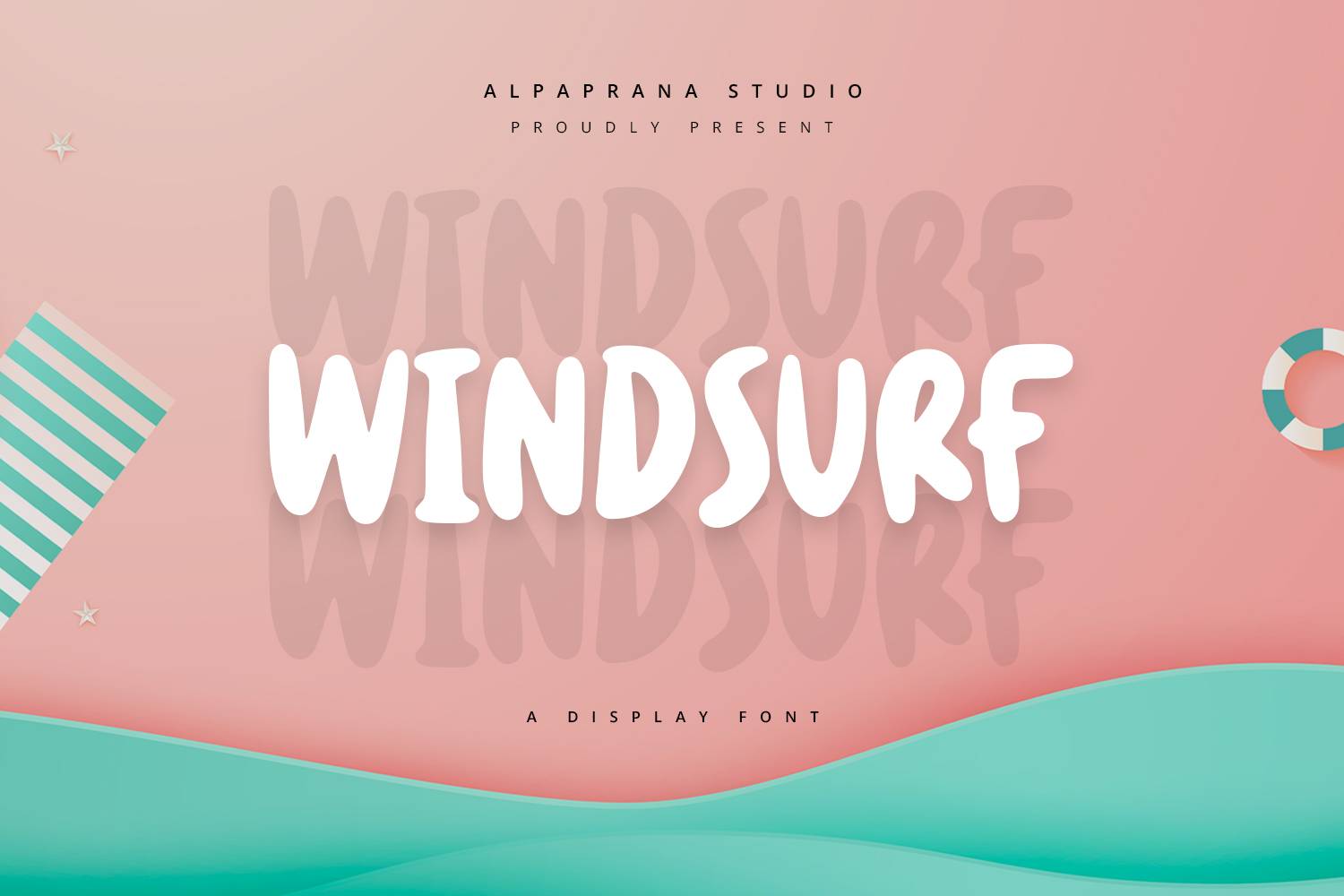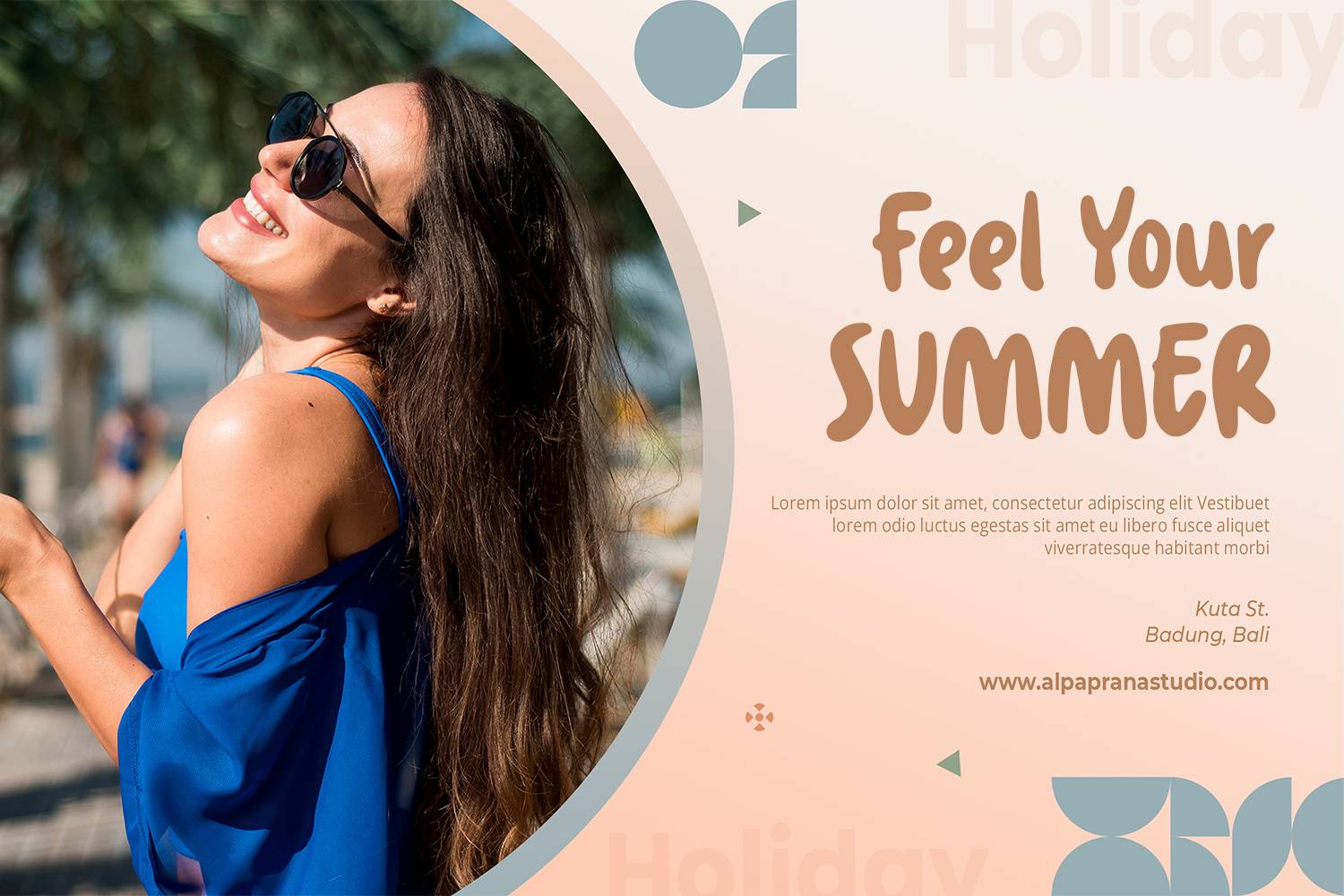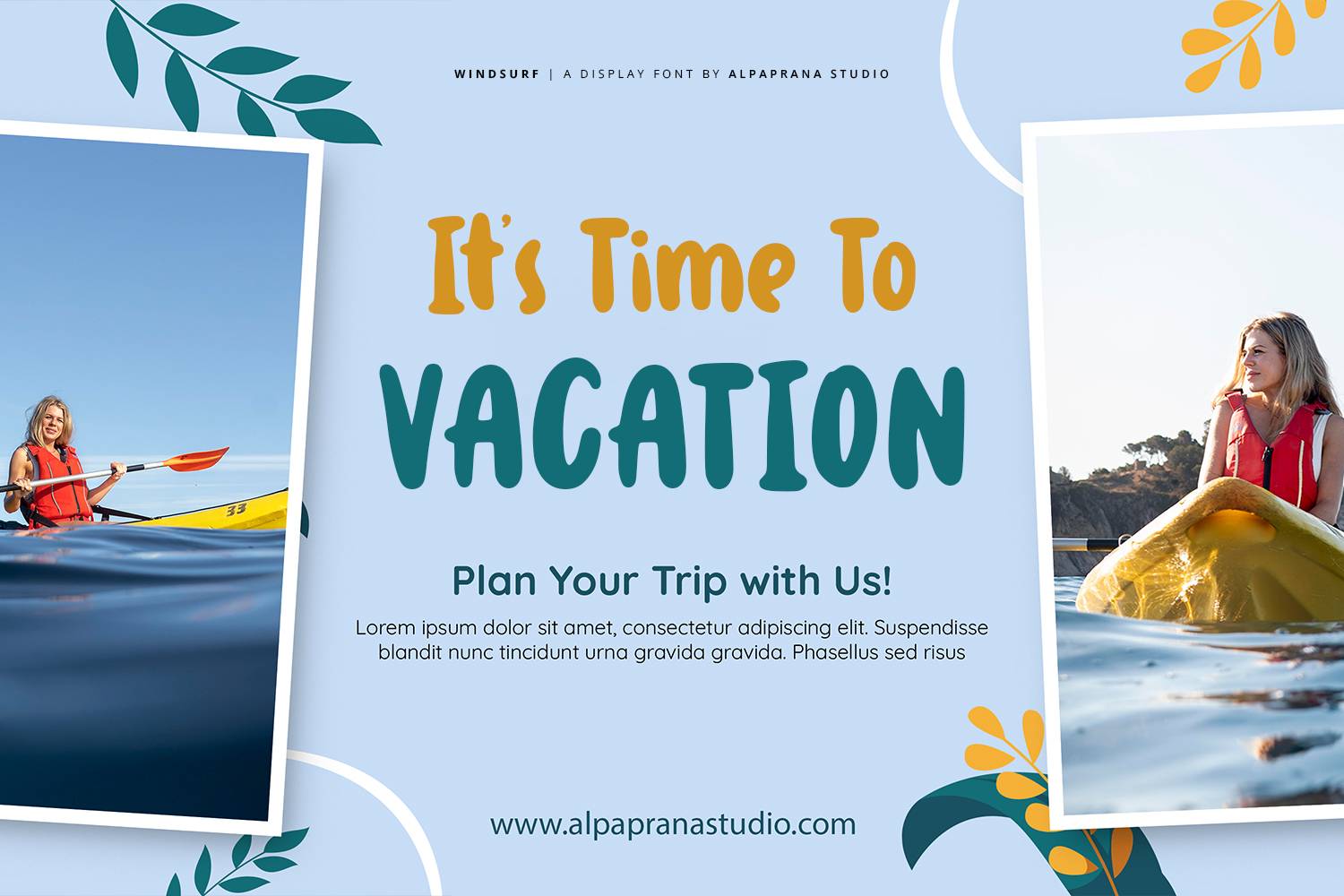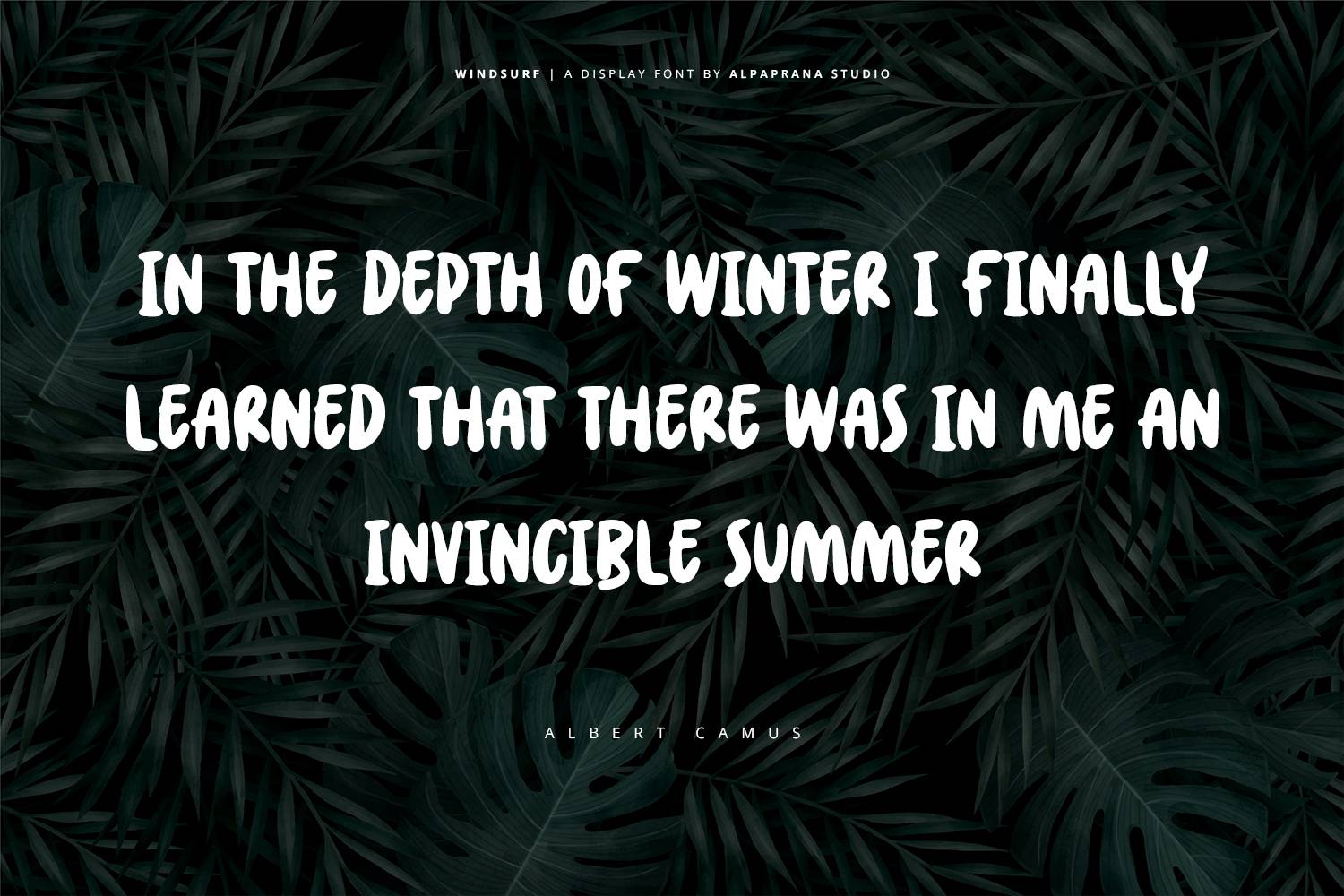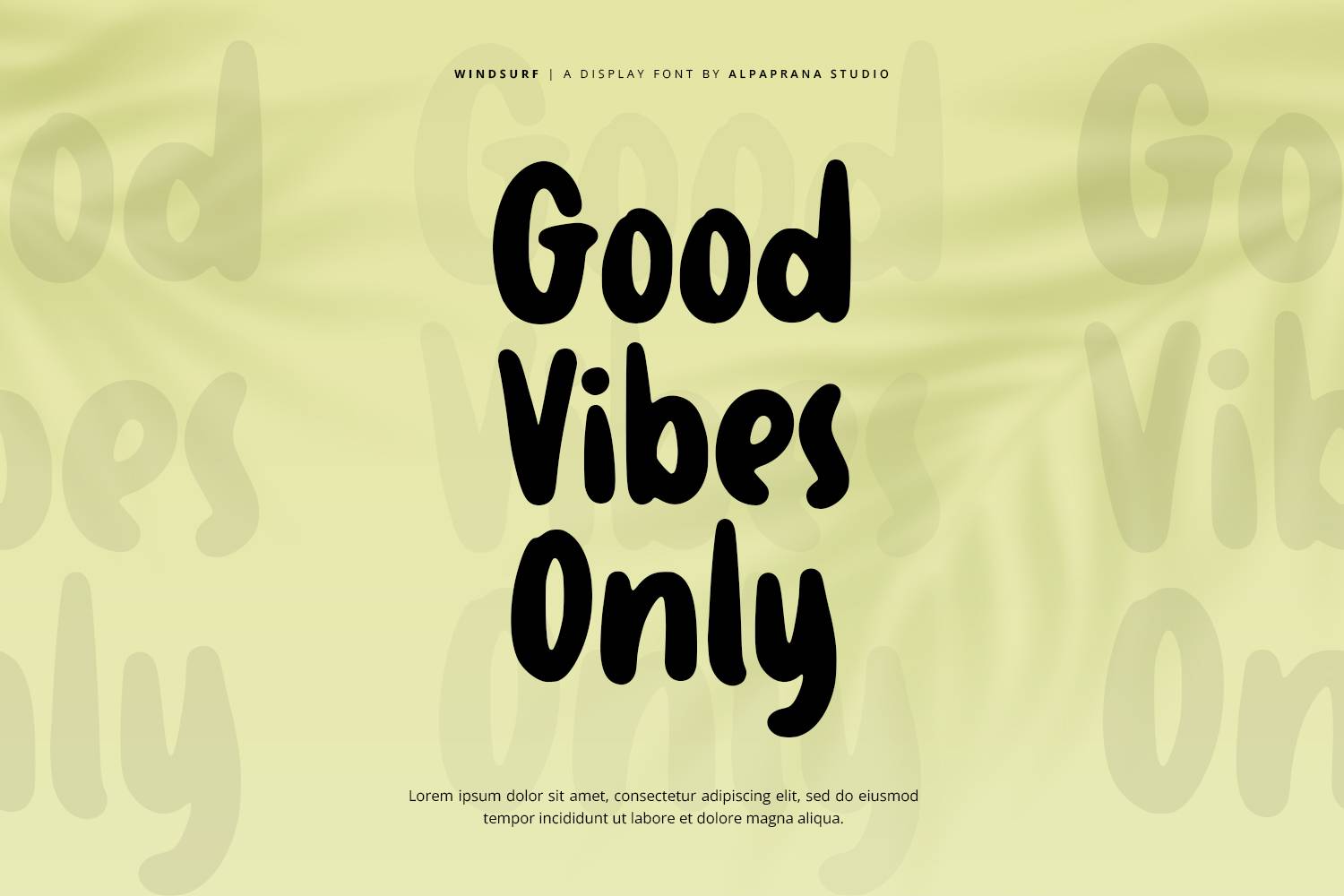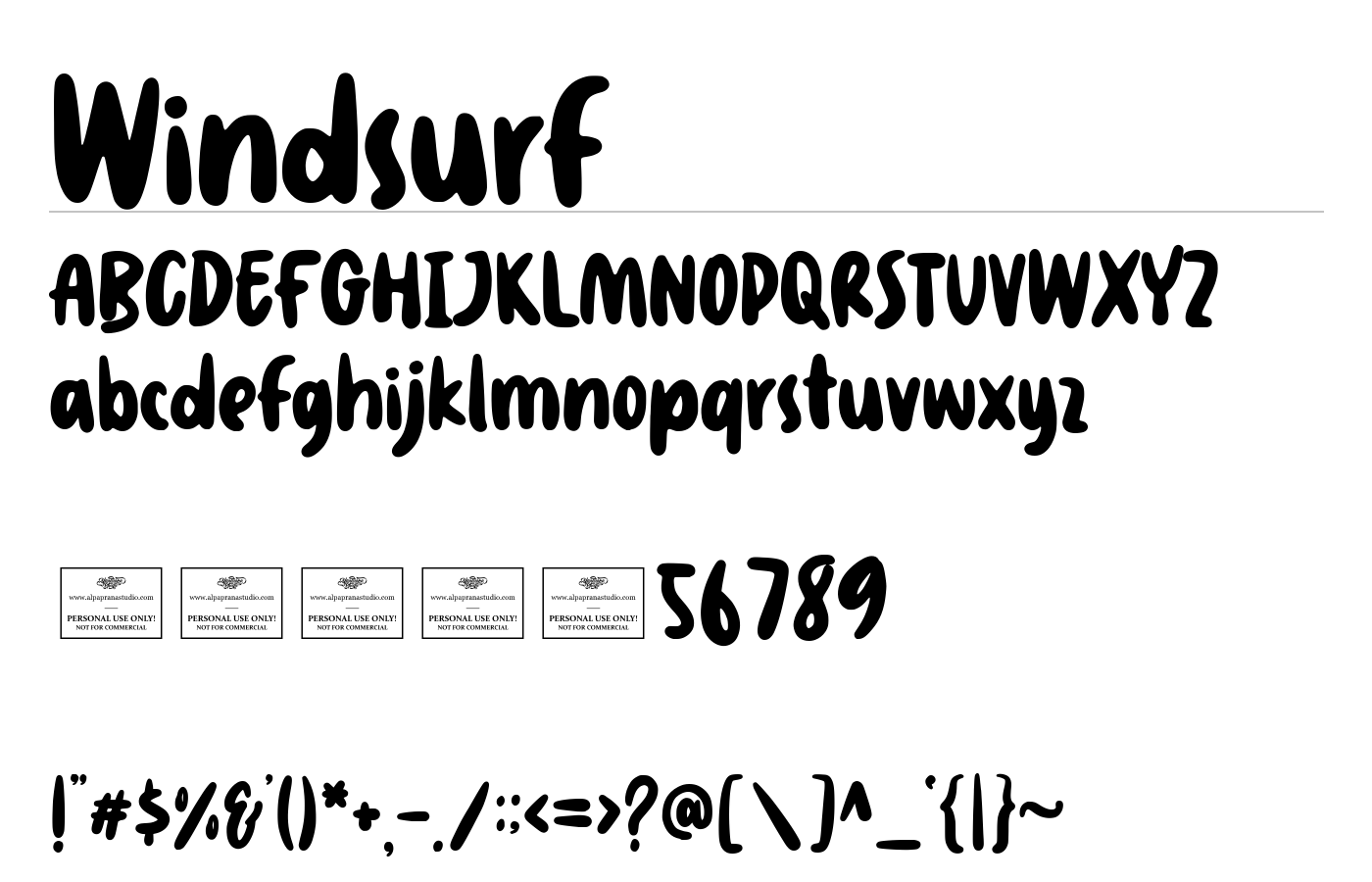
Windsurf is a bold and playful handwritten sans serif font featuring rounded, organic shapes that give it a friendly and informal vibe. Its uneven stroke widths and lively letterforms make it perfect for creative and casual designs, such as children’s books, posters, or branding that seeks a warm, approachable personality. This font works best in display settings where its charming and energetic style can truly shine.
Windsurf Font